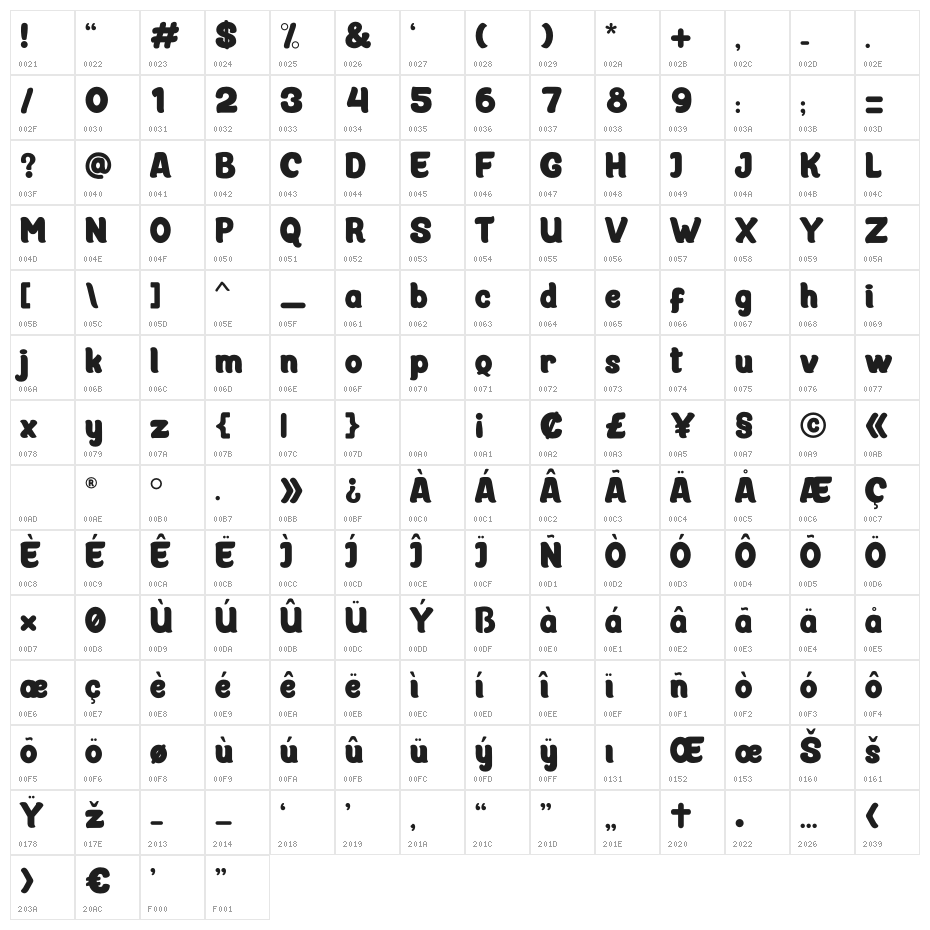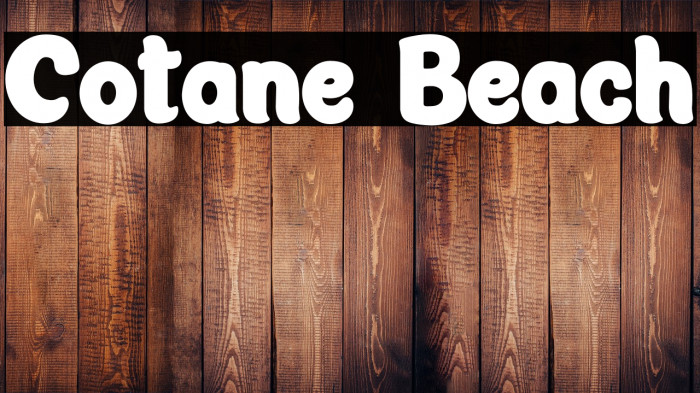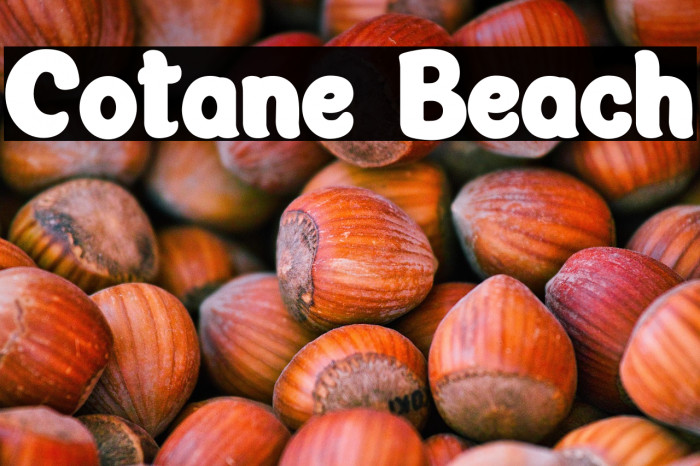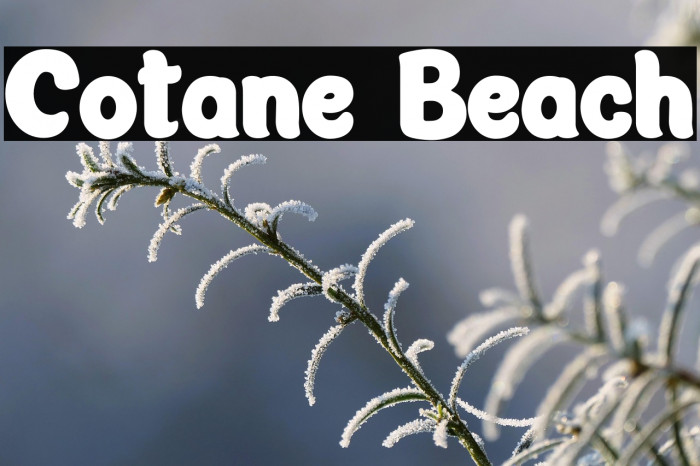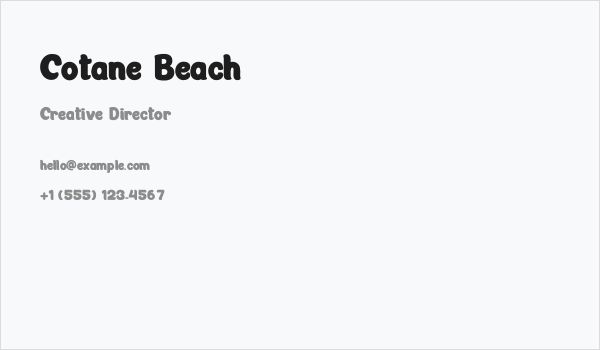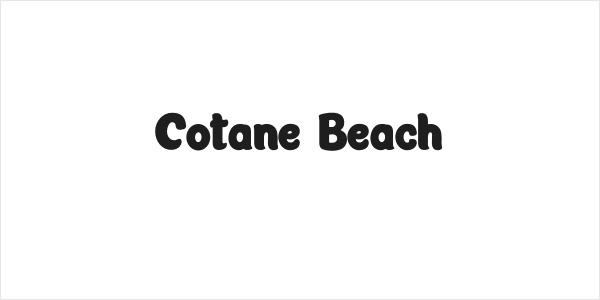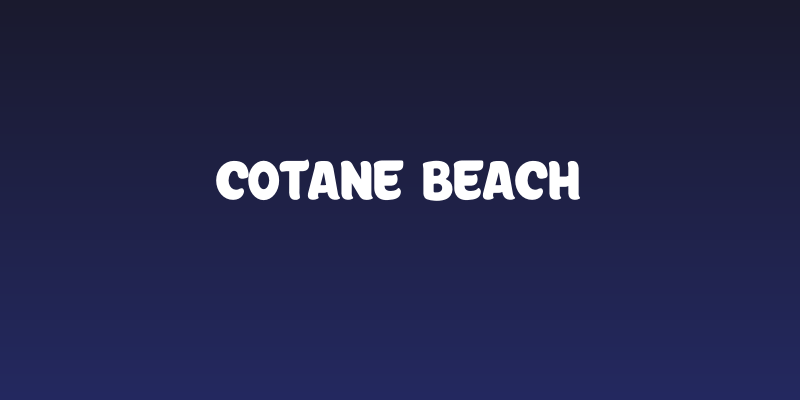
Cotane Beach Font
Cotane Beach Description
This font features a bold and playful design with rounded edges and a bubbly appearance. The characters are thick and have a consistent stroke width, giving them a strong presence. The overall style is reminiscent of retro or vintage designs, making it suitable for projects that require a fun and lively touch. The font includes both uppercase and lowercase letters, numbers, and a variety of special characters, all maintaining the same playful aesthetic. The spacing between characters is relatively tight, enhancing the bold and cohesive look of the text.
| Overall Style | Retro, Playful |
| Use Case | Logos, Posters, Headlines |
| Proposed Projects | Ideal for children's books, playful branding, posters, and retro-themed designs. |